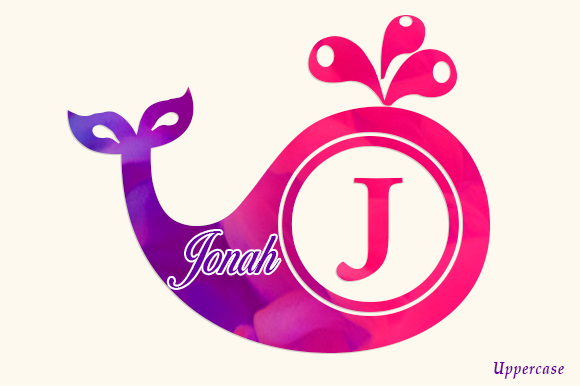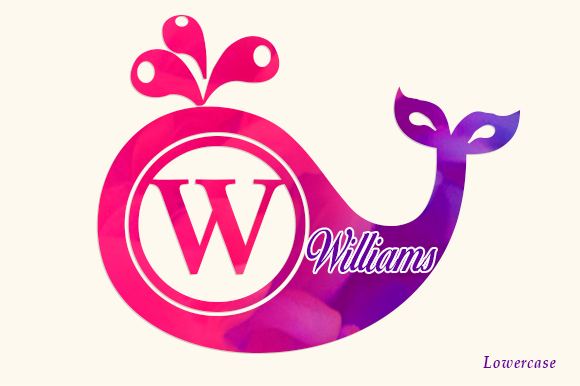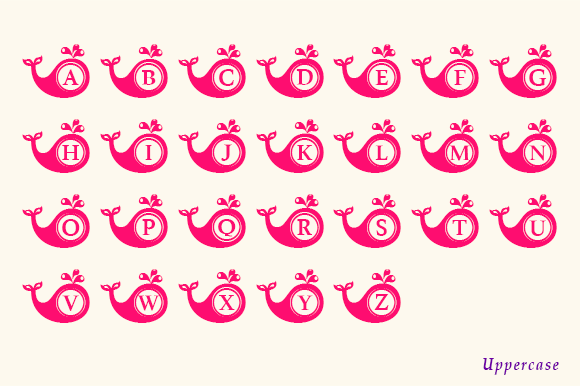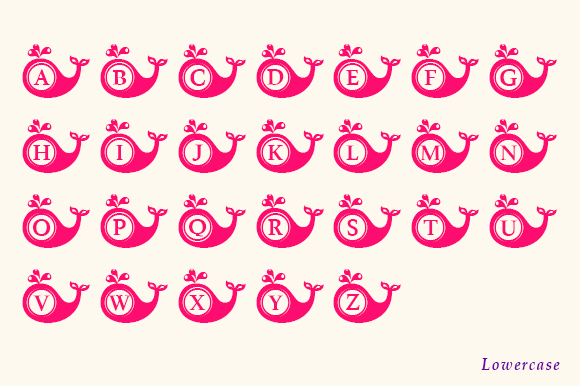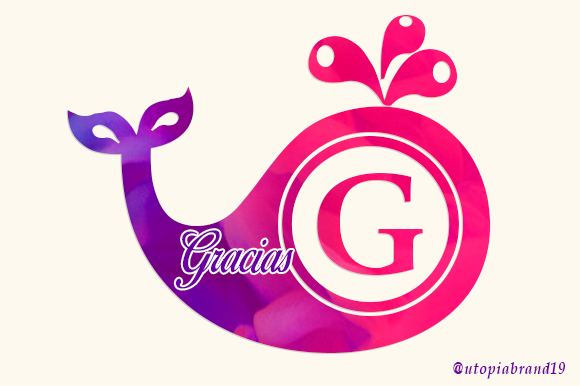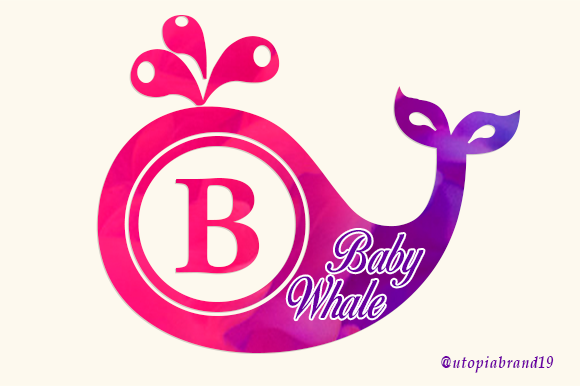
Baby Whale Monogram Font: A Charming Decorative Font for Your Creative Projects
Are you looking for a font that can add a touch of whimsy and charm to your designs? Look no further than the Baby Whale Monogram Font. This delightful font is perfect for crafters, designers, and anyone who loves to create beautiful and unique content. In this article, we’ll explore the features and benefits of the Baby Whale Monogram Font and show you how to use it to create stunning invitations, stationery, social media posts, and greeting cards.
What is Baby Whale Monogram Font?
Baby Whale Monogram Font is a charming decorative font that is sure to capture your heart. Its authentic feel and unique design make it perfect for a wide range of creative projects. Whether you’re creating invitations, stationery, social media posts, or greeting cards, this font is sure to add a touch of magic to your designs.
Features of Baby Whale Monogram Font
The Baby Whale Monogram Font has several features that make it a standout choice for designers and crafters. Some of its key features include:
- Unique Design: The Baby Whale Monogram Font has a unique and authentic design that is sure to set your designs apart.
- Decorative Style: This font has a decorative style that is perfect for creating beautiful and eye-catching designs.
- Monogram Style: The font features a monogram style that is perfect for creating personalized and customized designs.
Benefits of Using Baby Whale Monogram Font
There are many benefits to using the Baby Whale Monogram Font in your designs. Some of the benefits include:
- Adds a Touch of Whimsy: The Baby Whale Monogram Font adds a touch of whimsy and charm to your designs, making them stand out from the crowd.
- Perfect for Personalized Designs: The monogram style of the font makes it perfect for creating personalized and customized designs.
- Increases Creativity: The unique design of the font can help to increase your creativity and inspire you to create new and exciting designs.
- Easy to Read: The font is easy to read, making it perfect for use in a wide range of designs, from invitations to social media posts.
Using Baby Whale Monogram Font in Your Designs
The Baby Whale Monogram Font can be used in a wide range of designs, from invitations to social media posts. Here are a few ideas for using the font in your designs:
- Invitations: Use the Baby Whale Monogram Font to create beautiful and unique invitations for parties, weddings, and other special events.
- Stationery: Create gorgeous stationery art using the font, perfect for writing letters or creating personalized notes.
- Social Media Posts: Use the font to create eye-catching social media posts that are sure to grab the attention of your followers.
- Greeting Cards: Create cute and personalized greeting cards using the Baby Whale Monogram Font.
Tips for Getting the Most Out of Baby Whale Monogram Font
Here are a few tips for getting the most out of the Baby Whale Monogram Font:
- Experiment with Different Colors: Experiment with different colors and combinations to find the perfect look for your design.
- Use with Other Fonts: Use the Baby Whale Monogram Font with other fonts to create a unique and interesting design.
- Play with Size and Style: Play with the size and style of the font to create a design that is truly unique.
The Baby Whale Monogram Font is a charming decorative font that is perfect for designers and crafters who love to create beautiful and unique content. With its authentic feel and unique design, this font is sure to add a touch of magic to your designs. Whether you’re creating invitations, stationery, social media posts, or greeting cards, the Baby Whale Monogram Font is a great choice. So why not give it a try and see what amazing designs you can create?